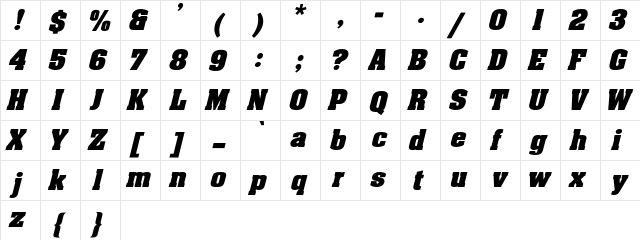
AaronBoldExpd Italic
Design Context for AaronBoldExpd Typeface
AaronBoldExpd offers clean, dependable letterforms without strong stylistic allegiance, making it a practical choice for designers who need flexibility. Its italic angle brings a sense of urgency and motion to the letterforms. The heavy weight commands attention and anchors typographic hierarchies.
Pro Tip: Use AaronBoldExpd for emphasis, pull quotes, and subheadings where its slanted energy can add rhythm to the layout.